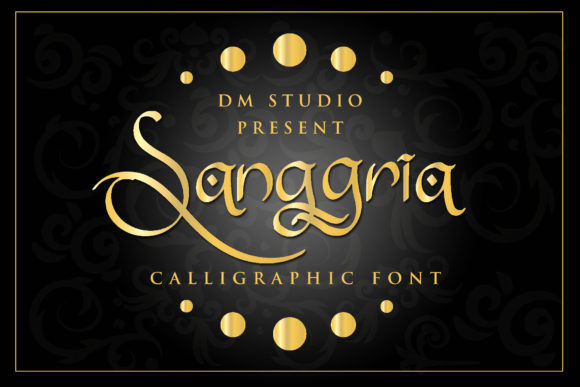
Sanggria Font
Immerse yourself in the enchanting world of Sanggria Font, a captivating script font family that exudes elegance and timeless beauty. Inspired by the grandeur of classical cultures and the artistry of ancient calligraphy, Sanggria transports you to a realm of sophistication and creativity.
With its graceful curves, delicate swashes, and intricate details, Sanggria is a visual masterpiece that adds an air of distinction to any project. Its meticulously crafted characters dance across the page, evoking a sense of nostalgia and romance.
Unleash your inner artist and let Sanggria's versatility ignite your imagination. This font family is a chameleon of style, effortlessly adapting to a wide range of design projects. From logos and branding materials that exude professionalism to letter signs and stamps that carry a touch of whimsy, Sanggria is your perfect creative companion.
Elevate your business cards, advertisements, flyers, and posters with Sanggria's undeniable charm. Its ability to capture attention and convey messages with impact makes it an invaluable asset for any business or creative endeavor.
As a special bonus, Sanggria comes adorned with a collection of exquisite ornaments and frames. These embellishments are like scattered jewels, adding a touch of grace and sophistication to your designs. With Sanggria, your creations will sparkle with individuality and leave a lasting impression on your audience.
Don't settle for ordinary fonts that blend into the background. Embrace the allure of Sanggria and watch as your designs transform into works of art. Its unique and captivating style will set your projects apart, captivating your audience and leaving them spellbound.
Sanggria is more than just a font; it's an experience. It's an invitation to embark on a creative journey where your imagination knows no bounds. Download Sanggria today and unleash the power of beauty, elegance, and timeless style in your designs.